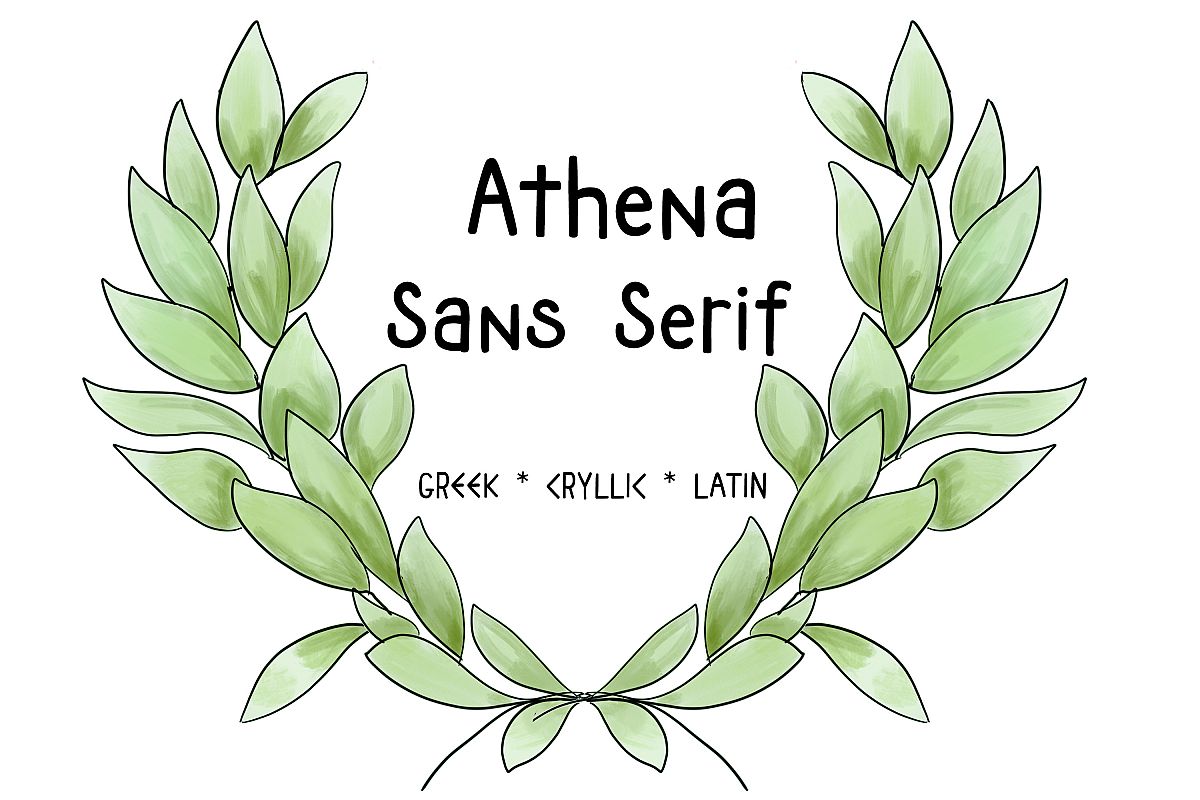
ATHENA SANS SERIF FONT - Greek, Cyrillic and Latin Typeface
I created Athena Sans Serif to supply the need for a:
• Fun Sans Serif Greek alphabet
• Latin alphabet
• Cyrillic alphabet
• Additional Fun Ligatures